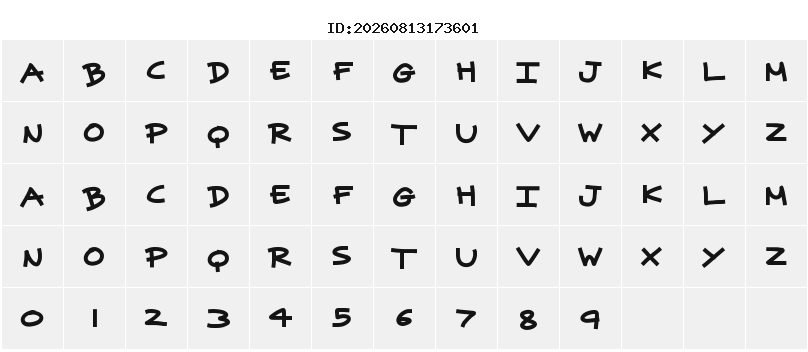
superpowers Preview
About superpowers.ttf
superpowers.ttf is a modern, elegant sans-serif font designed for ultimate readability and visual harmony. Perfect for branding, headlines, web design, and print materials.